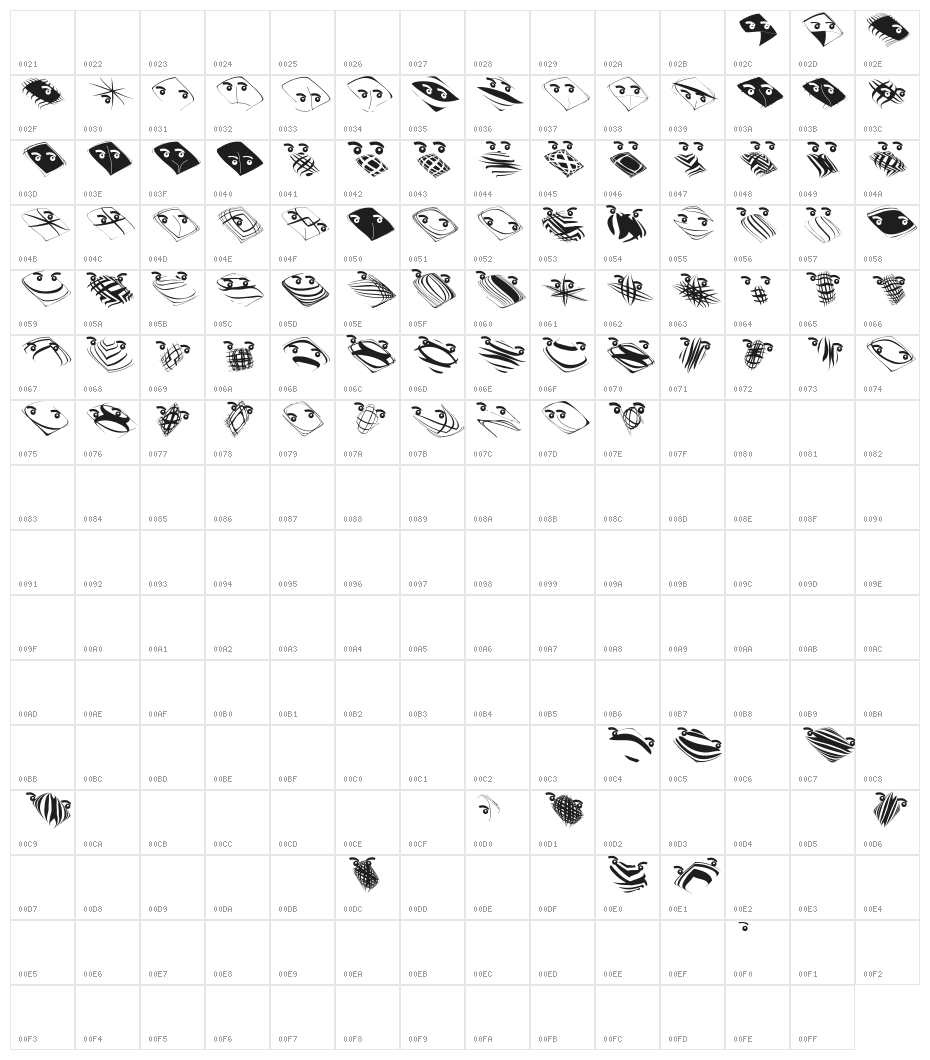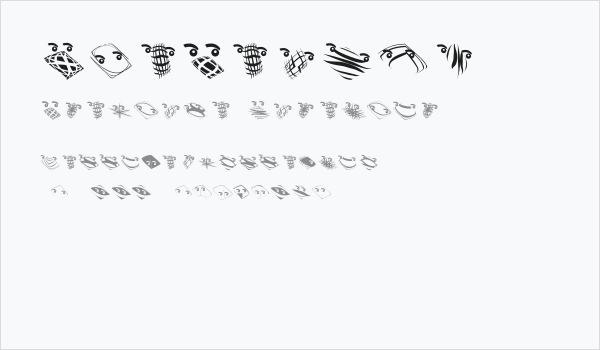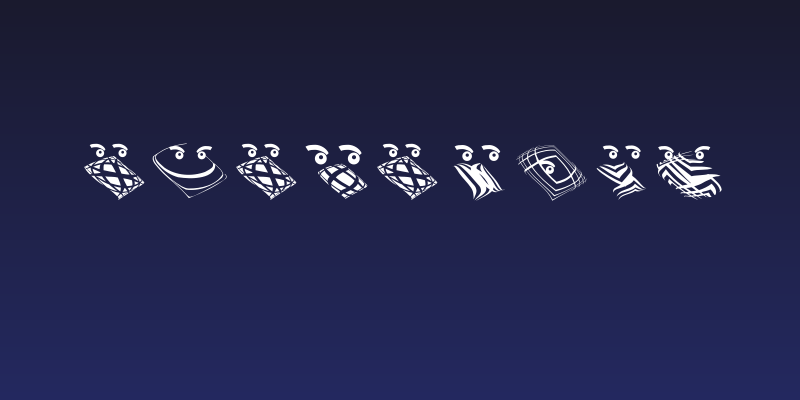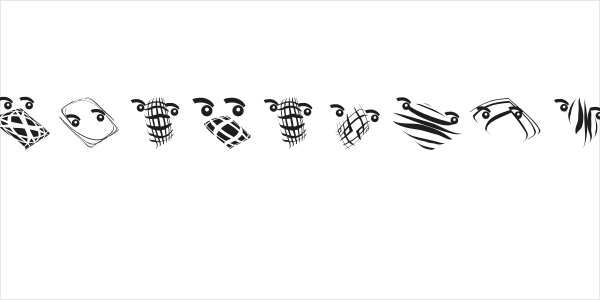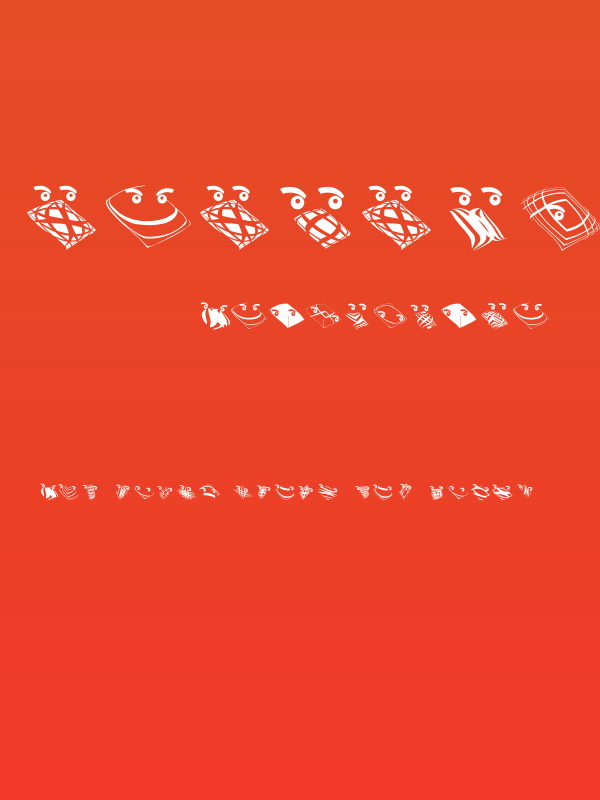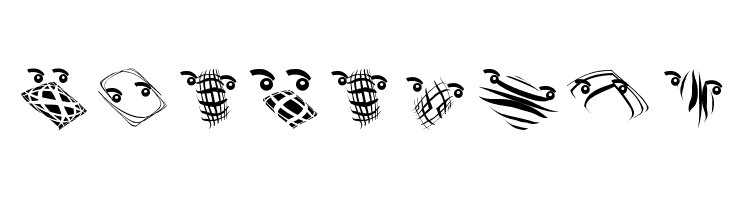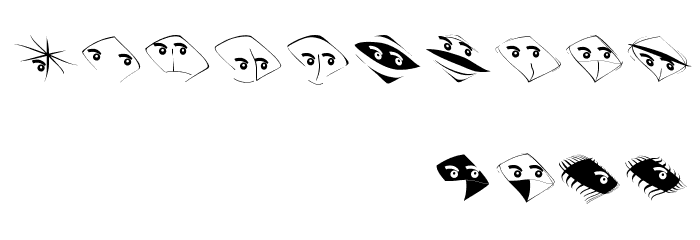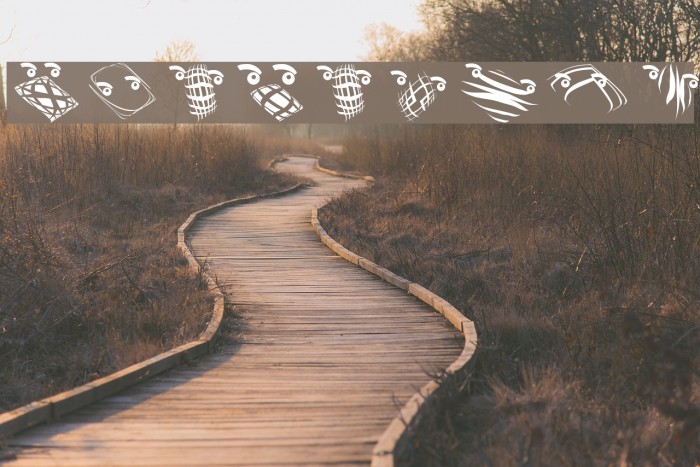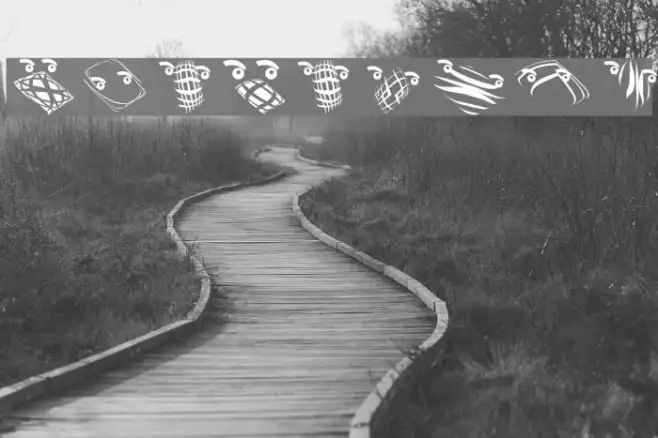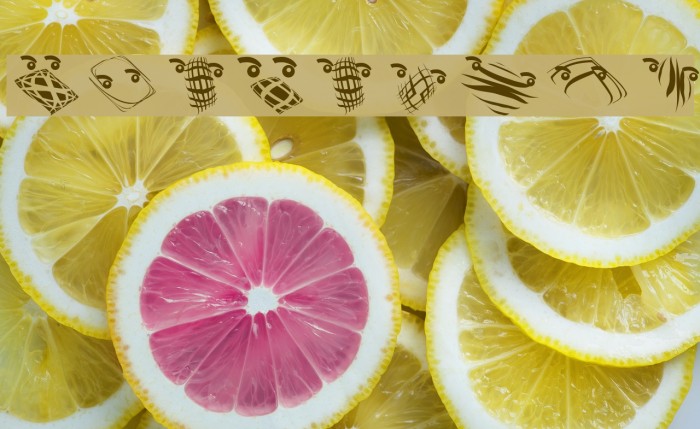
EyeBeings Font
EyeBeings Description
This font is a whimsical and artistic representation of characters, each designed with unique facial expressions and abstract shapes. The characters are not traditional letters or numbers but rather creative illustrations that resemble faces with eyes, adding a playful and imaginative touch. The design is highly decorative, with each character featuring distinct patterns and textures, ranging from stripes and grids to swirls and dots. The overall appearance is dynamic and lively, making it suitable for projects that require a fun and engaging visual element.
| Use Case | Logos, Art projects, Creative displays |
| Proposed Projects | Ideal for children's books, creative posters, art projects, and playful branding materials. |